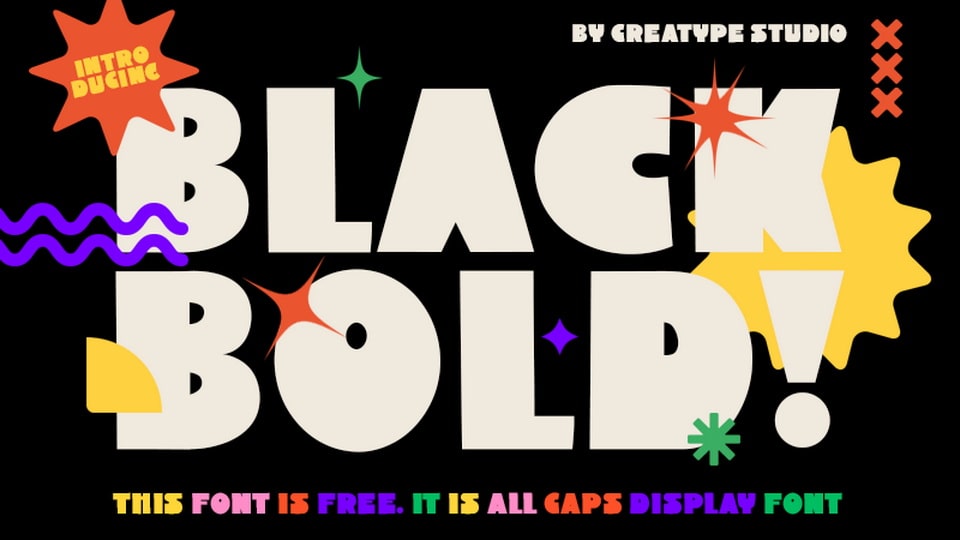
Download Black Bold font, a bold, all-caps display typeface that radiates playful energy and confidence with its chunky letterforms and cheerful design.